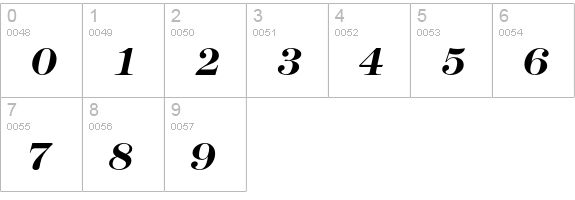
The ModernNo216EF-BoldItalic font is a bold and dynamic typeface that exudes modernity and sophistication. Its sleek lines and stylish curves make it perfect for creating eye-catching designs that demand attention. This font combines the elegance of italic styling with the boldness of a modern typeface, resulting in a unique and versatile font that is sure to make a statement. Best of all, the ModernNo216EF-BoldItalic font is available for free download at FontsMarket.com. This means you can easily access this striking font to enhance your projects without any cost. Whether you're designing a logo, poster, or website, the ModernNo216EF-BoldItalic font is a fantastic choice to add a touch of flair and personality. Download it today and elevate your designs with this captivating font.